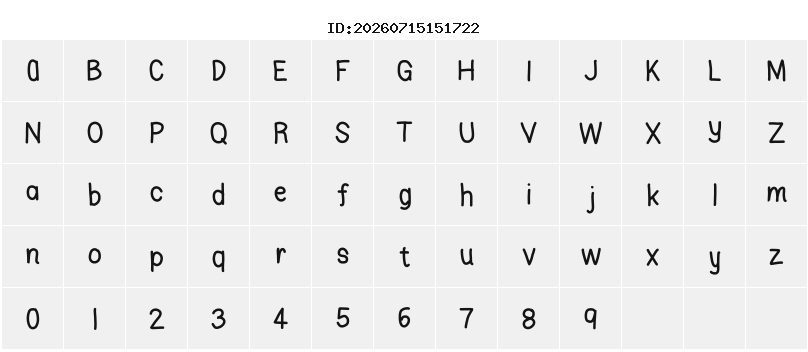
• Font Name: amazeballs
• Full Font Name: amazeballs
About amazeballs.ttf
amazeballs.ttf is a modern, elegant sans-serif font designed for ultimate readability and visual harmony. Perfect for branding, headlines, web design, and print materials.